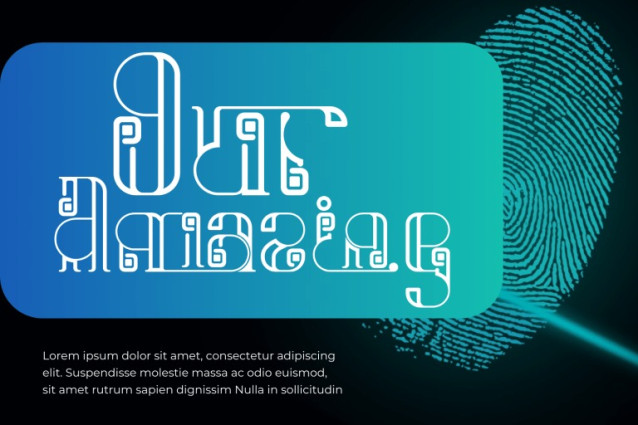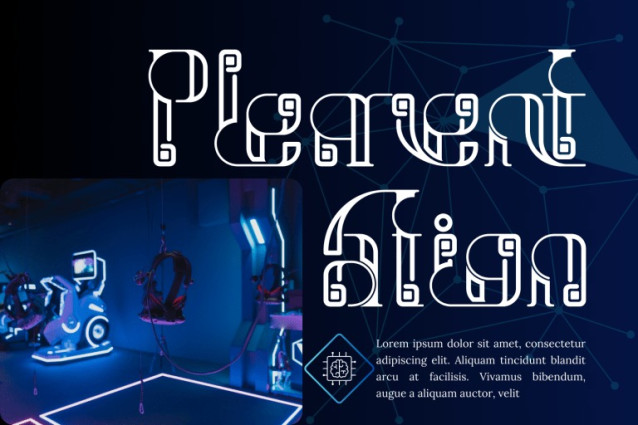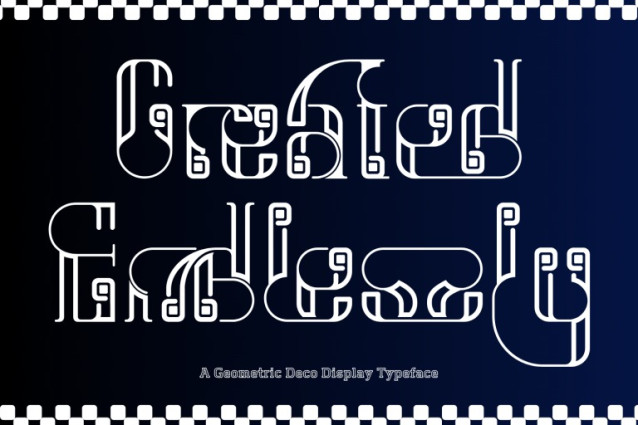
Created Endlessly Font
Created Endlessly – Decorative Font – A Futuristic Labyrinth Display Font, a cutting-edge decorative font designed with an experimental and futuristic spirit. Each character is built from interconnected geometric strokes, forming intricate maze-like structures that evoke a sense of mystery, innovation, and avant-garde design. Perfect for digital artworks, experimental branding, sci-fi posters, music album covers, and creative projects that push the boundaries of visual storytelling, Created Endlessly delivers a truly unique typographic voice.
🔤 Font Features:
Uppercase & Lowercase Letters
~100 Special Ligatures
Accented Characters for multilingual support
🔤 About 100 ligatures combined with Stylistic Alternates Font: